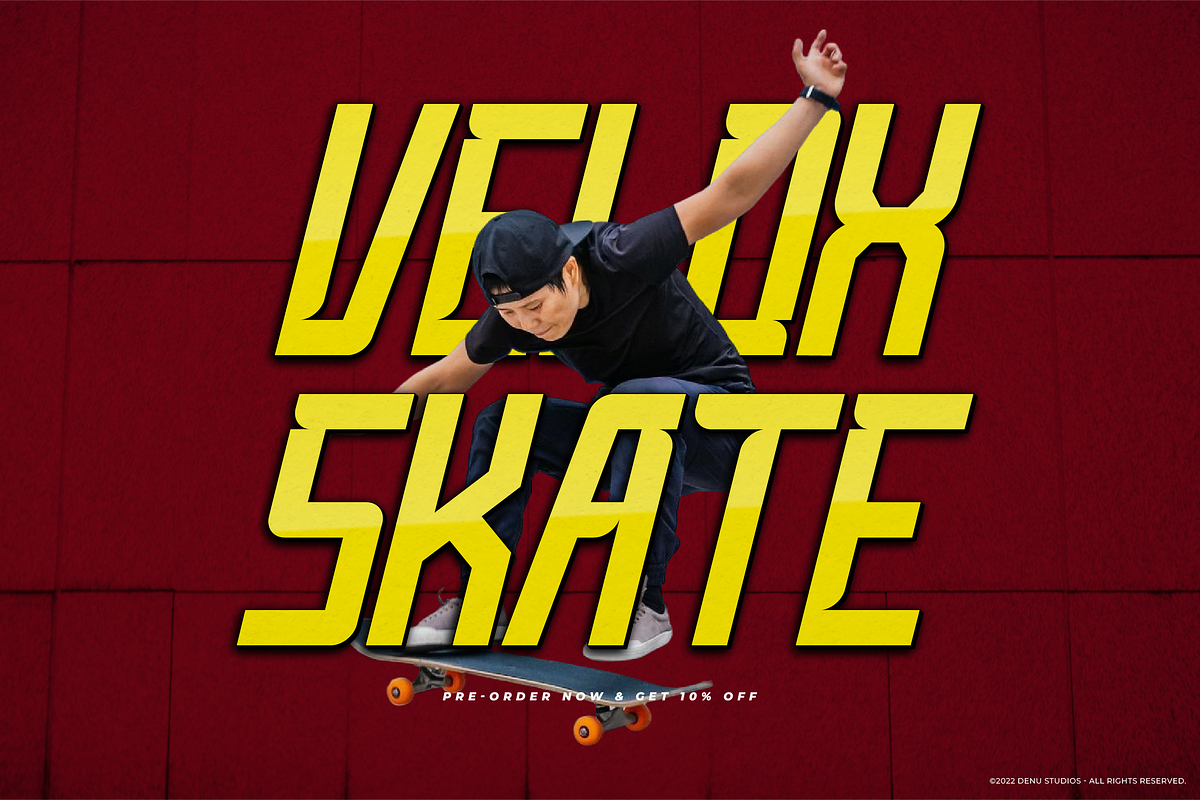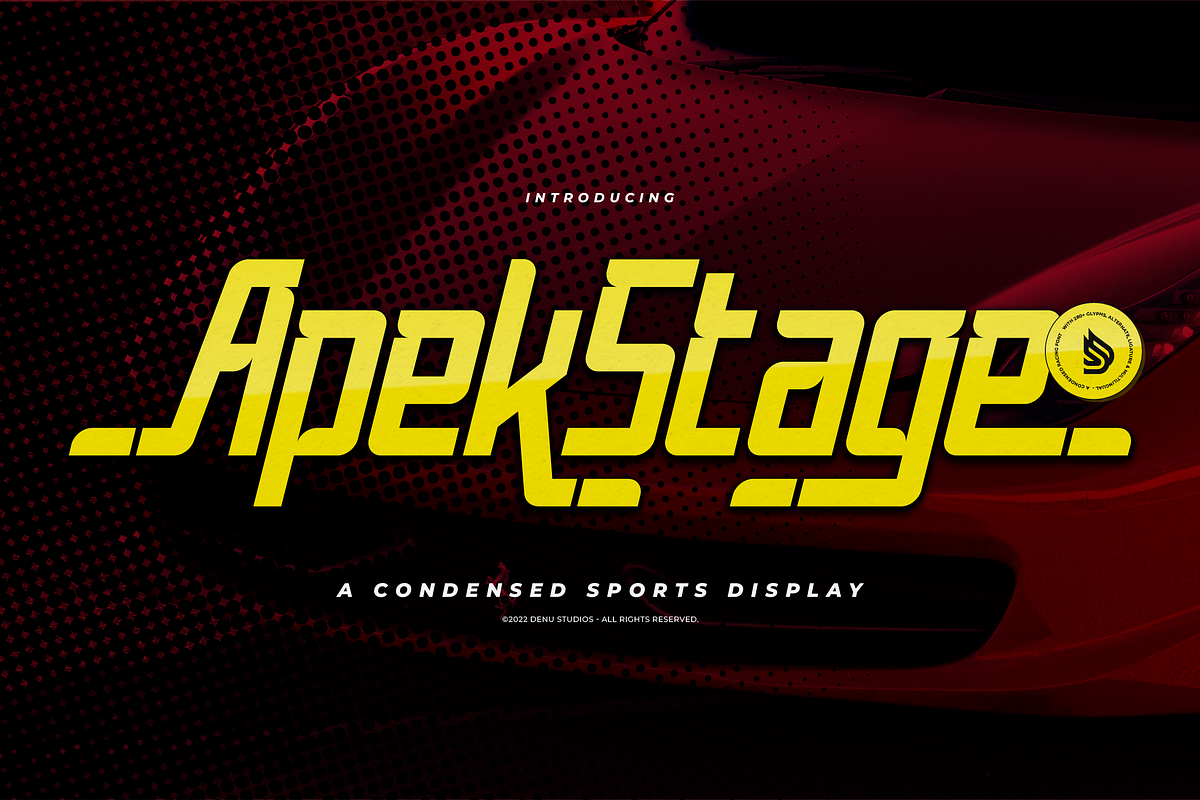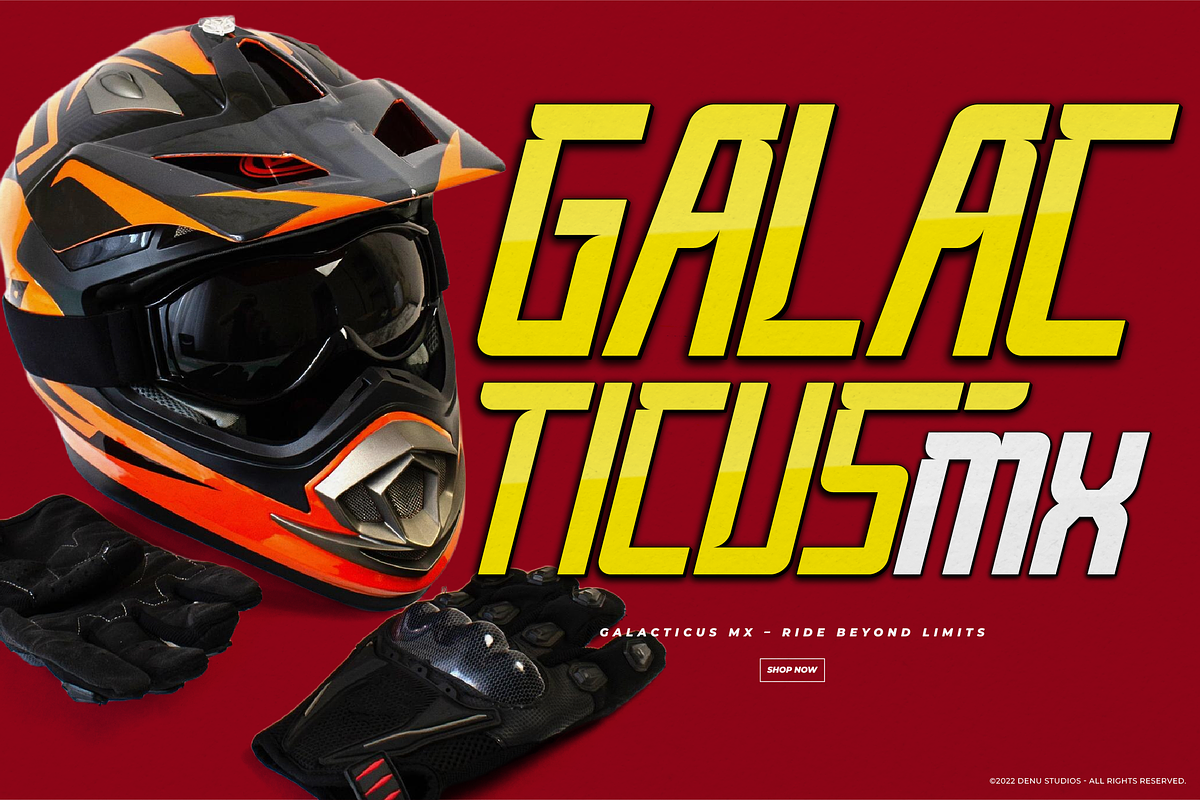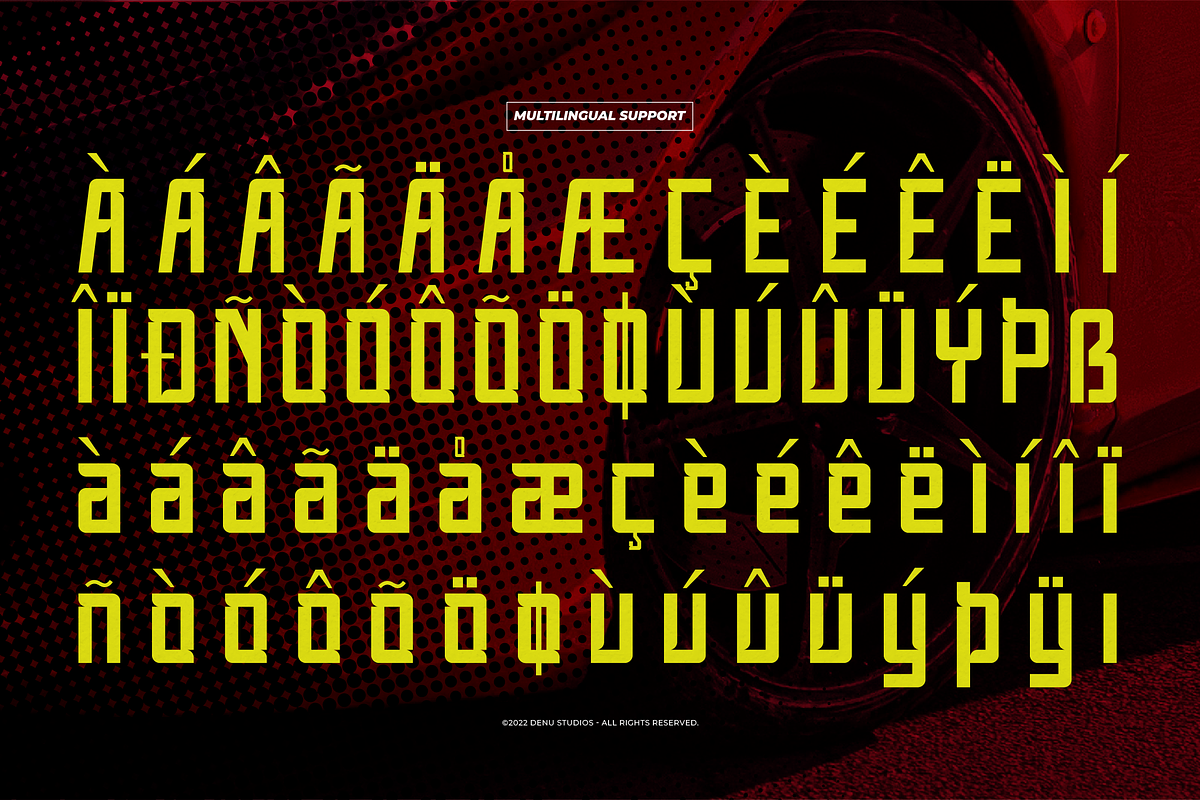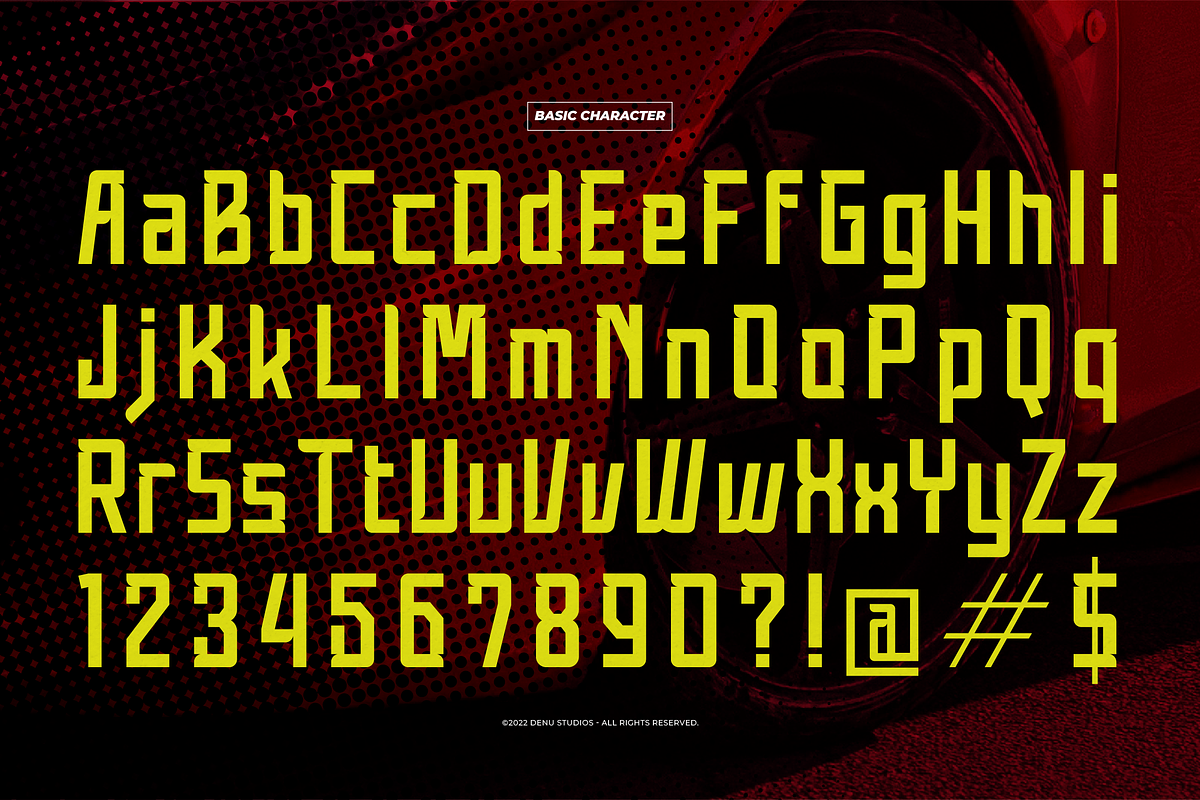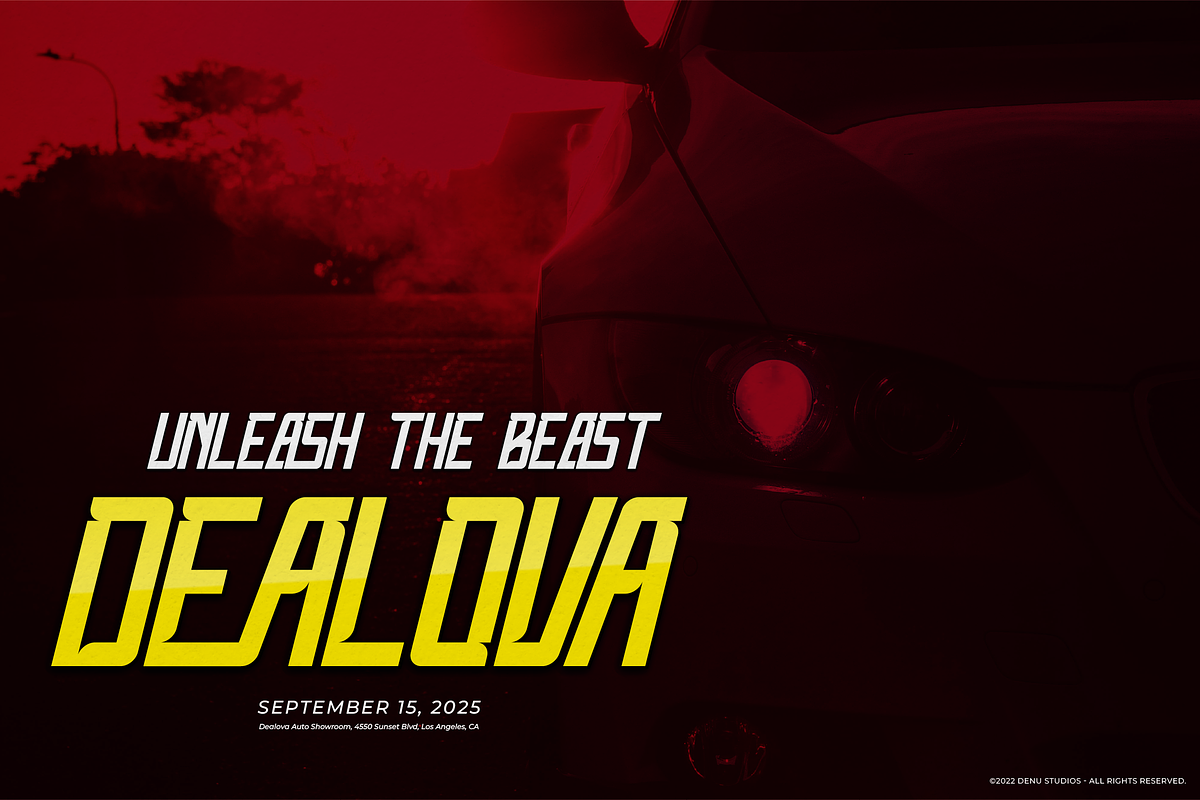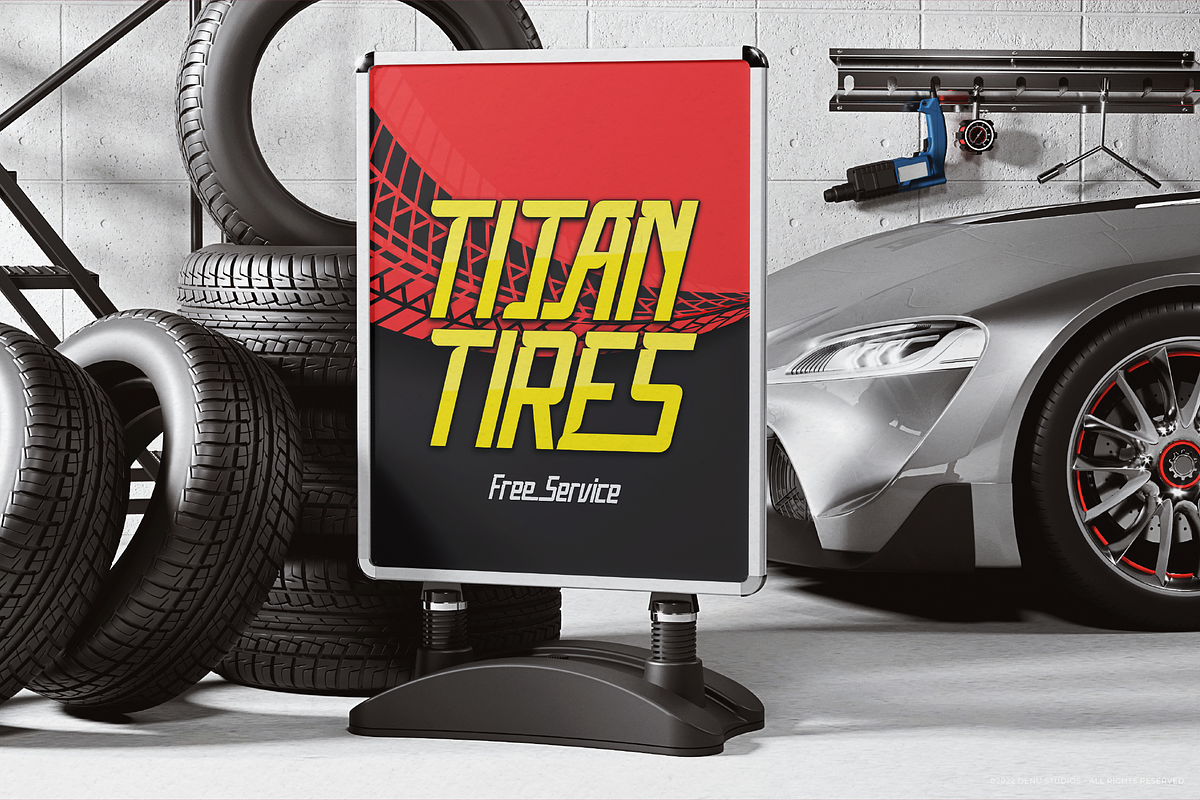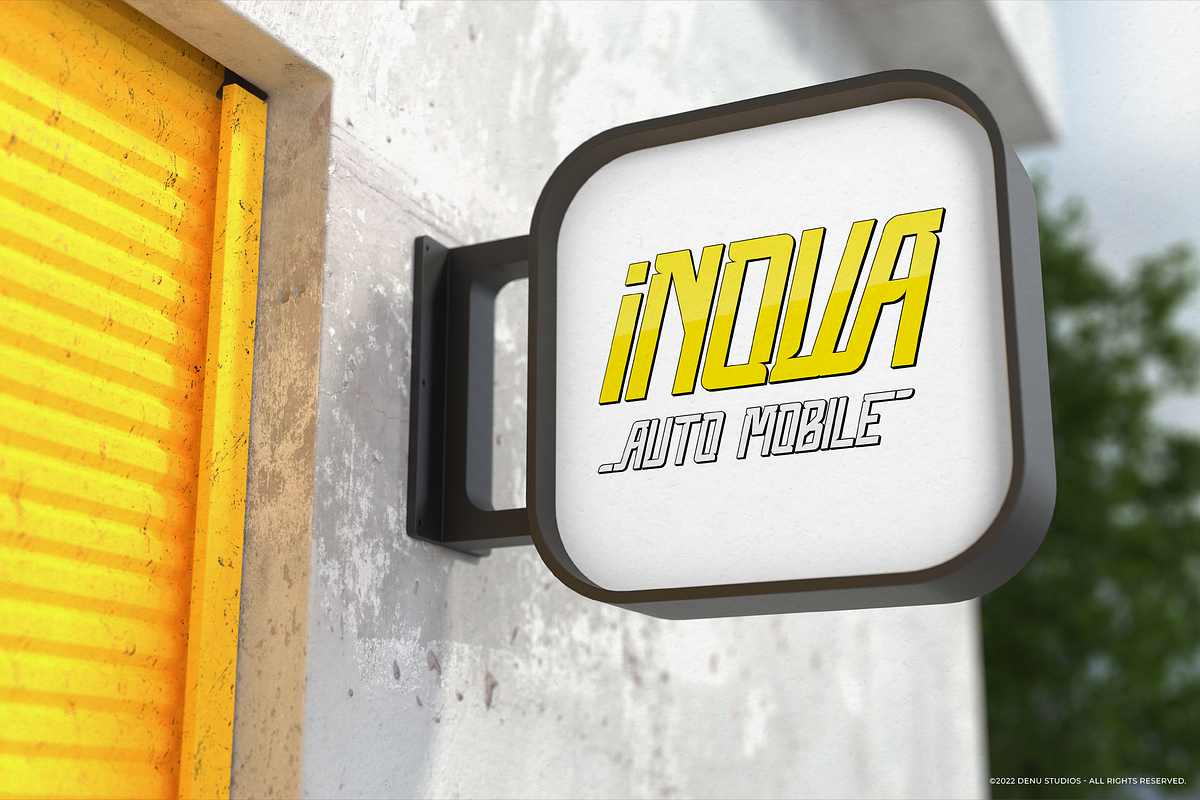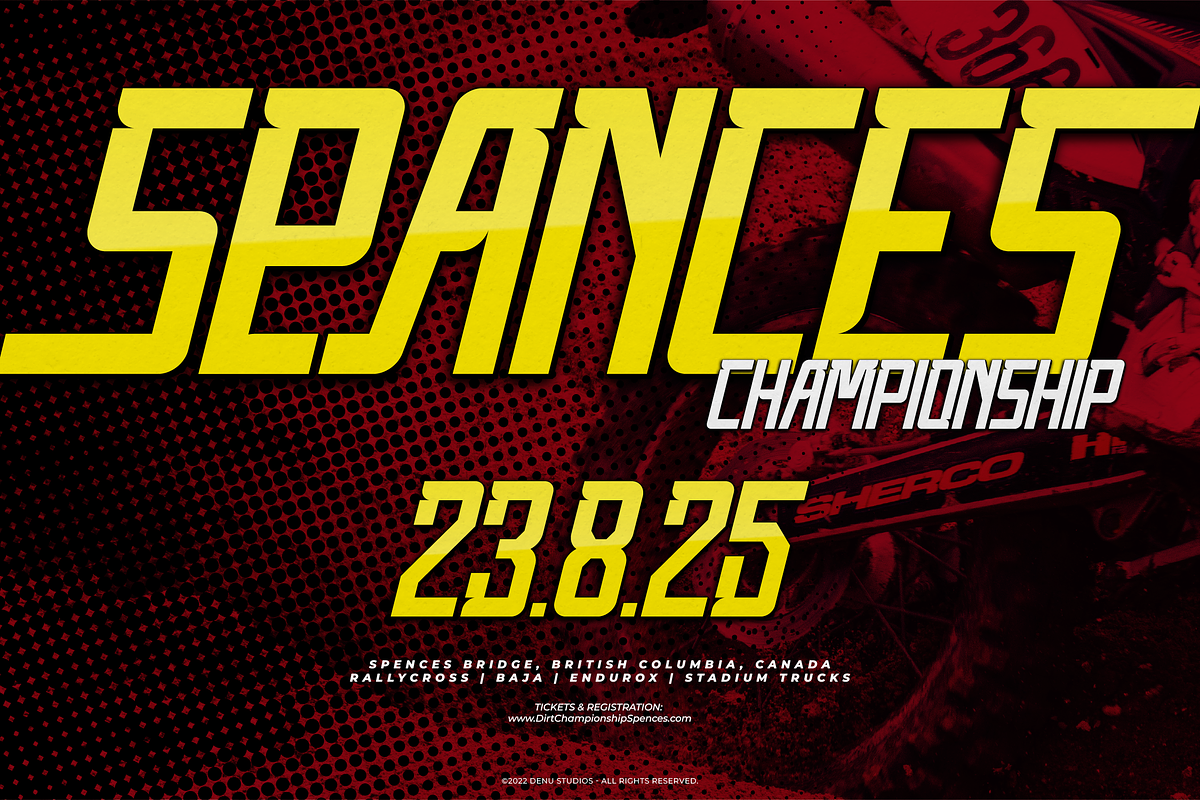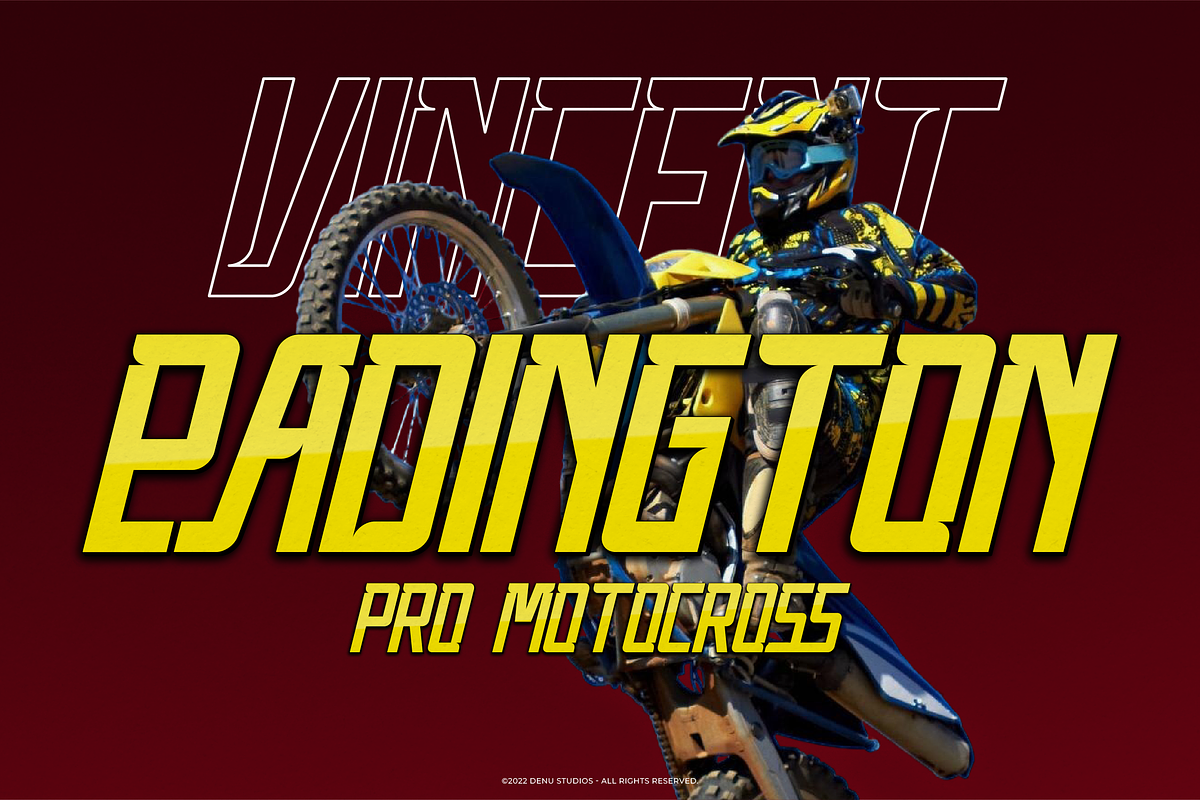
Apek Stage | Condensed Sport Display
Apek Stage | Condensed Sport Display, from Denustudios, suitable for any projects such as: logos, branding projects, homeware designs, product packaging, mugs, quotes, posters, shopping bags, t-shirts, book covers, name card, invitation cards, greeting cards, label, photography, watermark, special events, and all your other lovely projects that need a Condensed Sport Display taste.